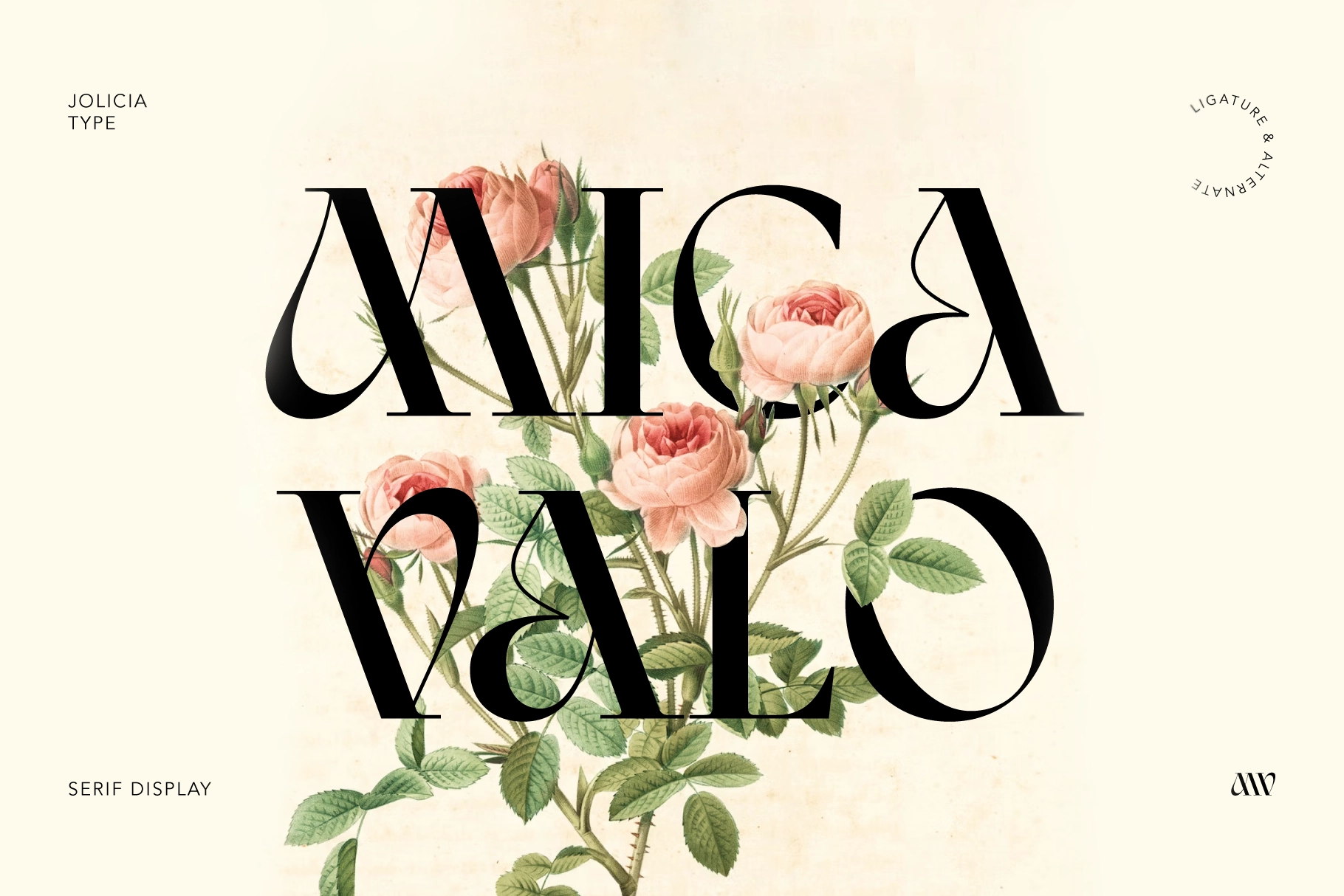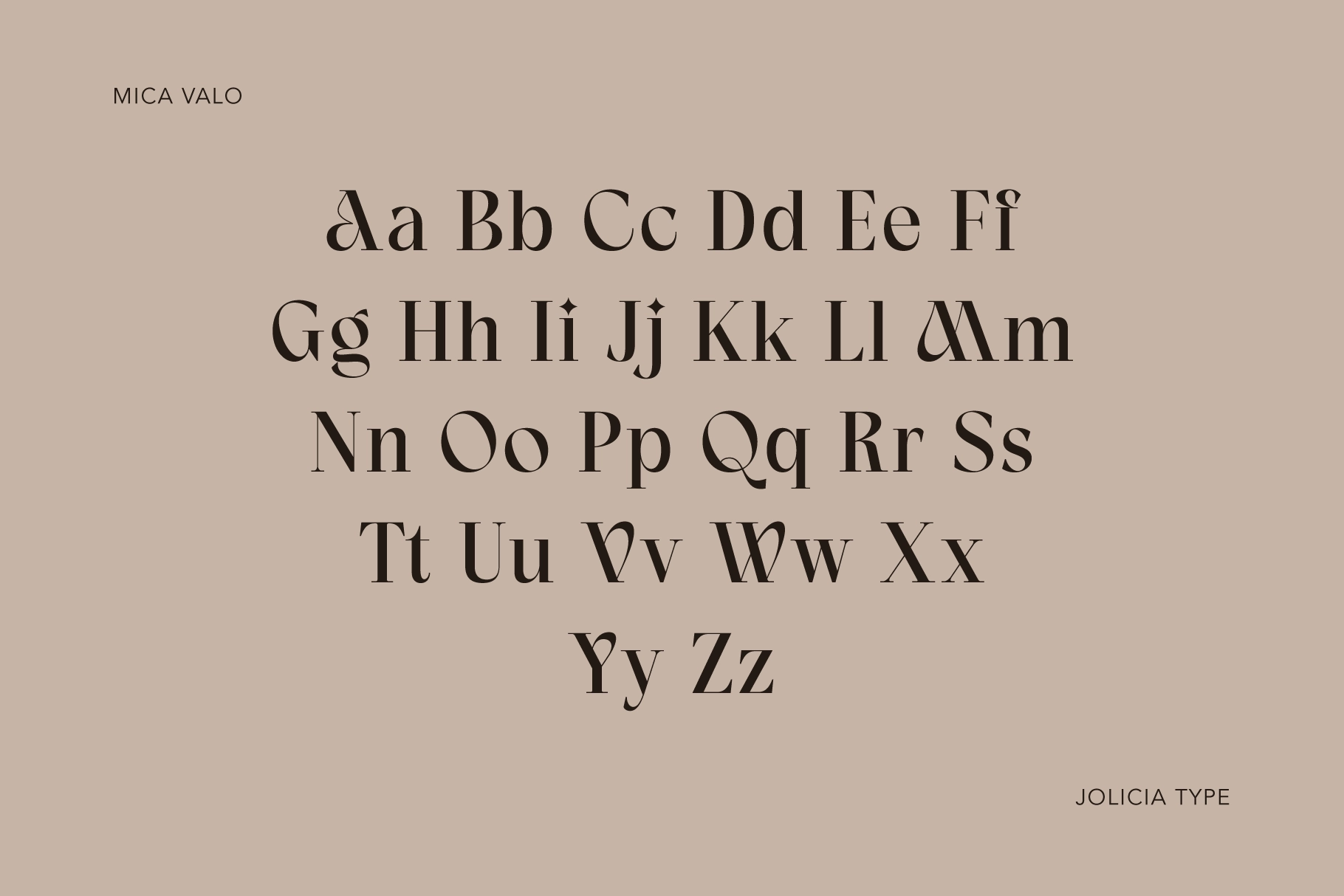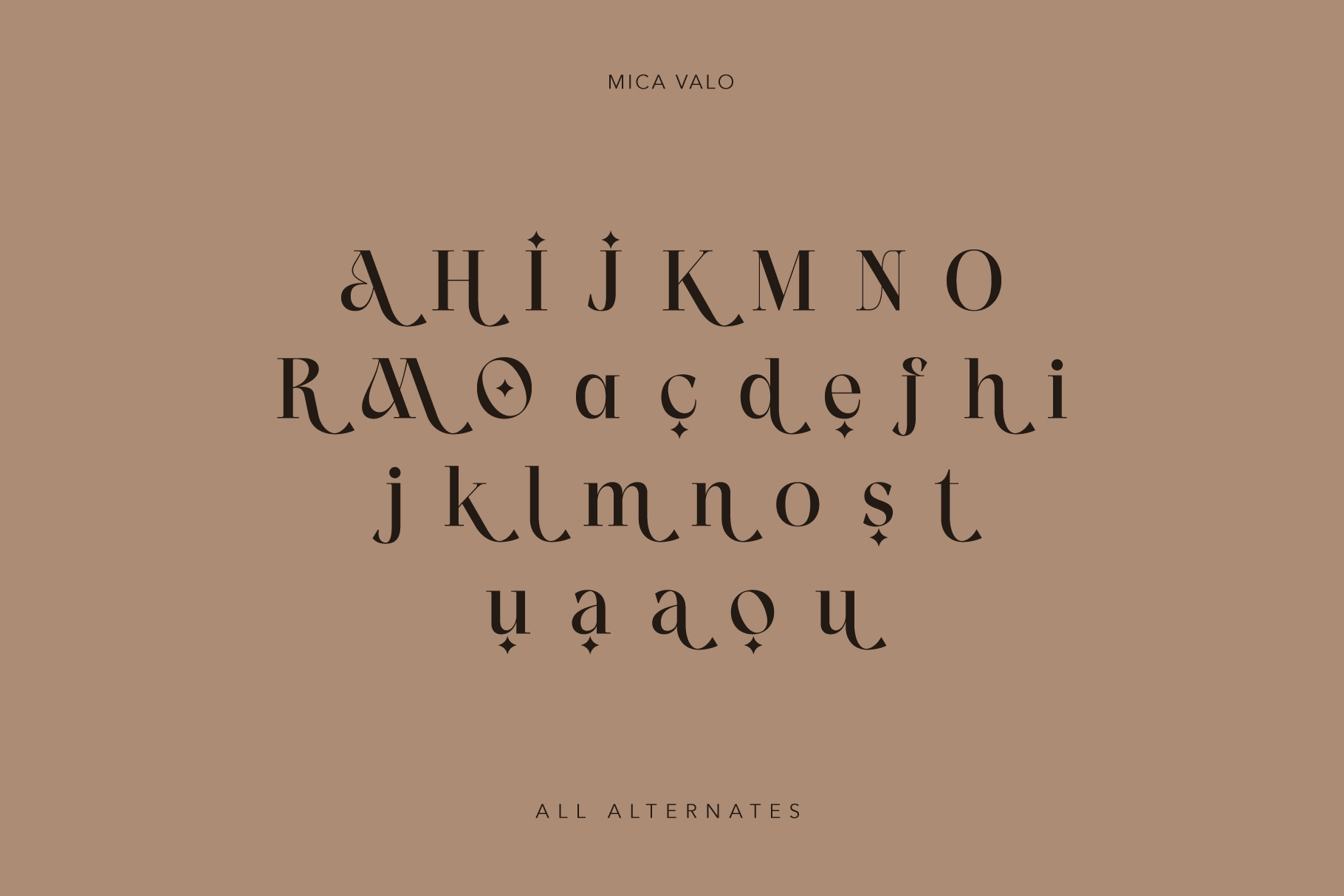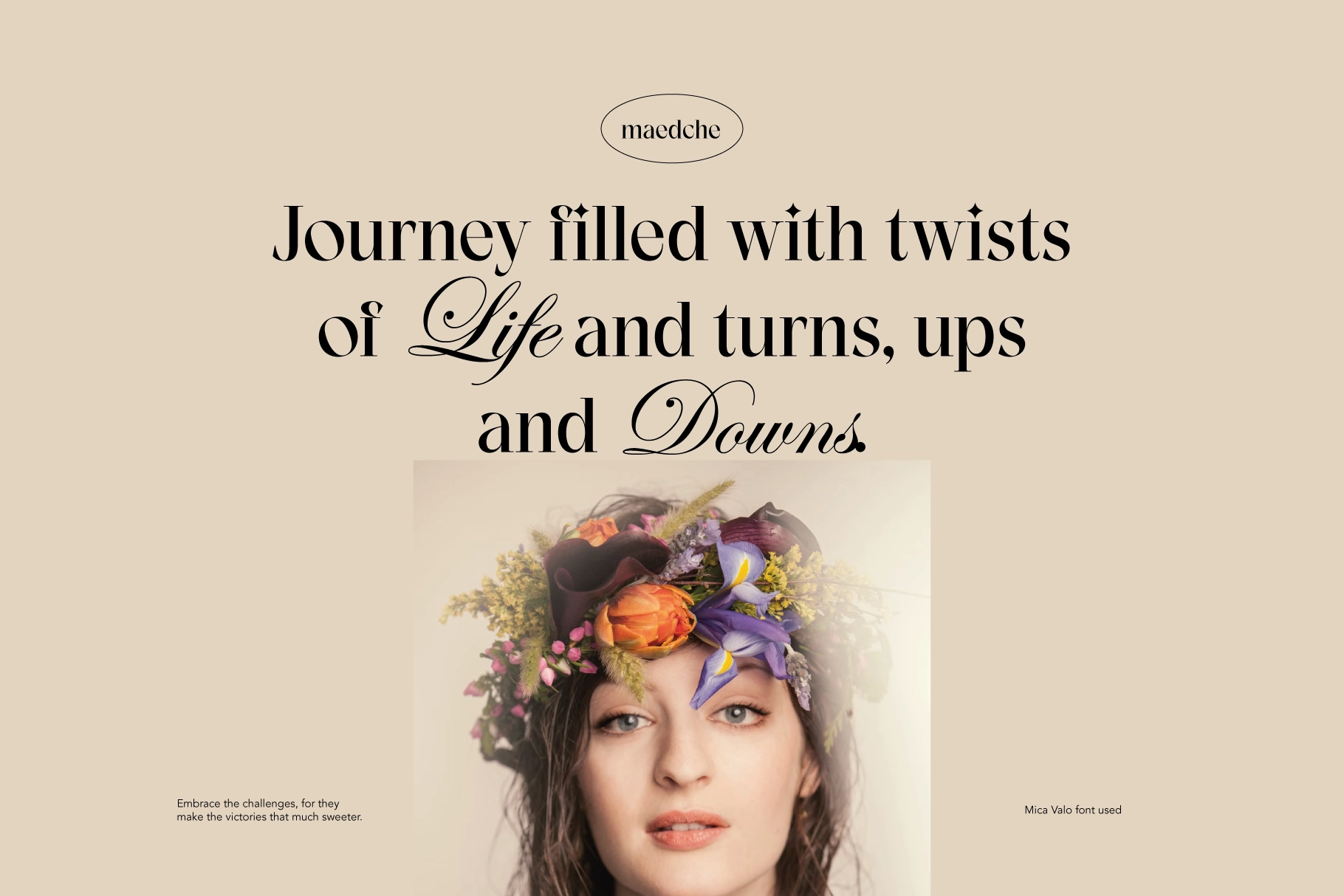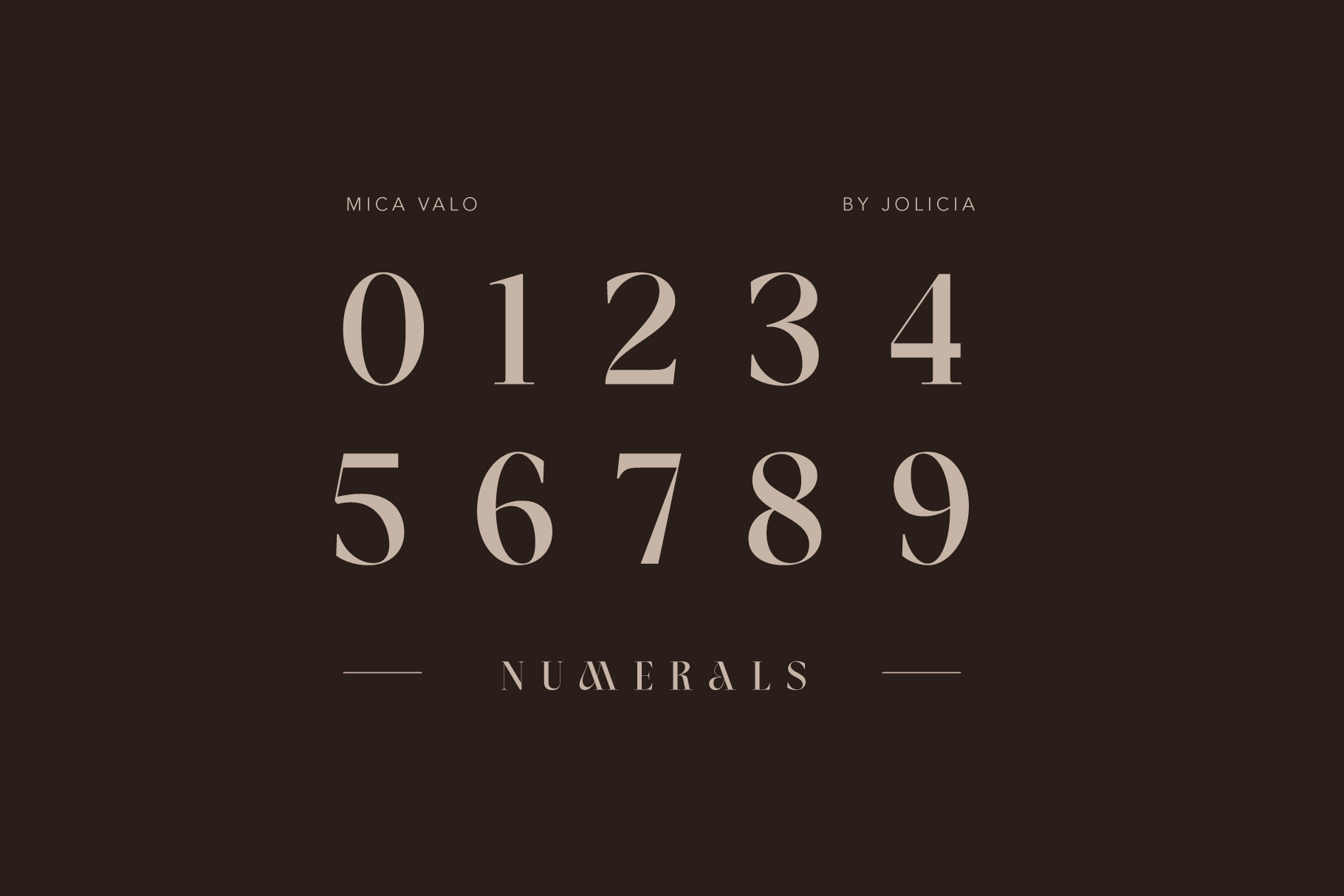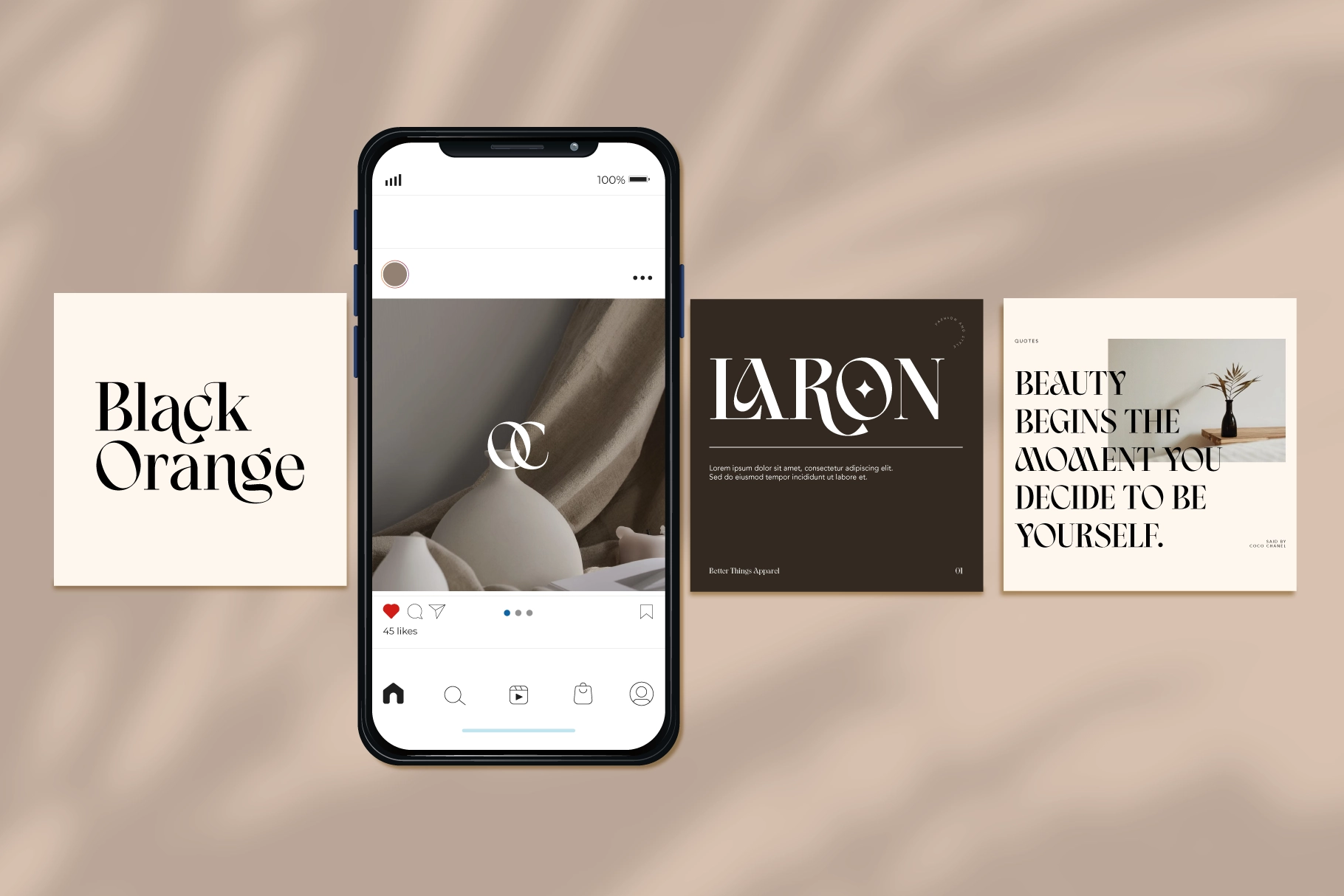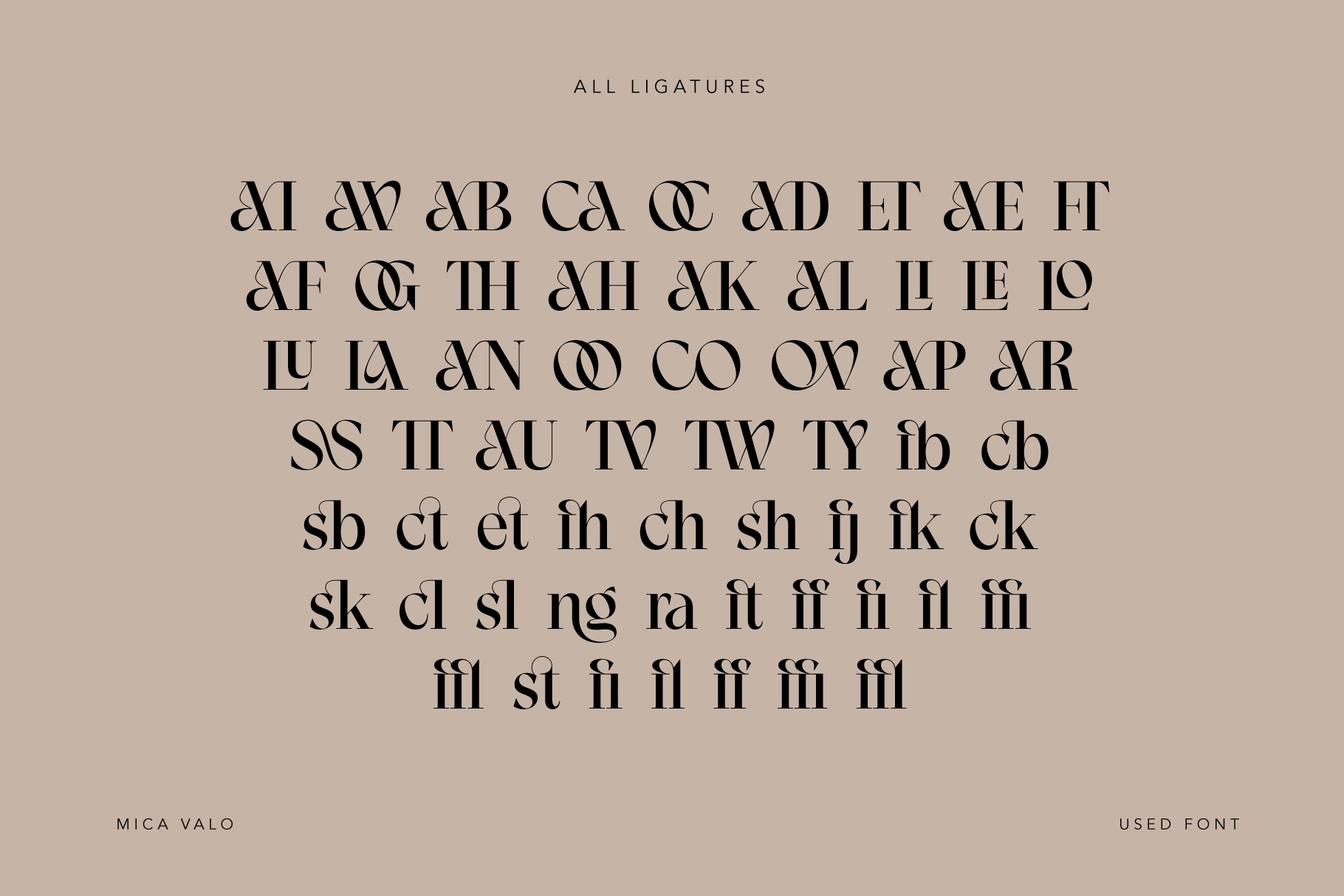
Mica Valo - Elegant Serif Display Font
Mica Valo
Mica Valo is an elegant serif display font designed to bring a refined, editorial quality to your work. Its elegant curves and contrasting strokes give a sense of poise, making it ideal for projects that require sophistication.
Mica Valo includes a rich set of alternates and ligatures, allowing subtle variations and creative typographic expression. The partial font name, Mica Valo, demonstrates its smooth letterforms and distinctive stylistic details. Use it for branding, invitations, editorial layouts, packaging, logos, posters, and social media headers.
- Uppercase & lowercase
- Stylistic alternates & ligatures
- Elegant serif display style